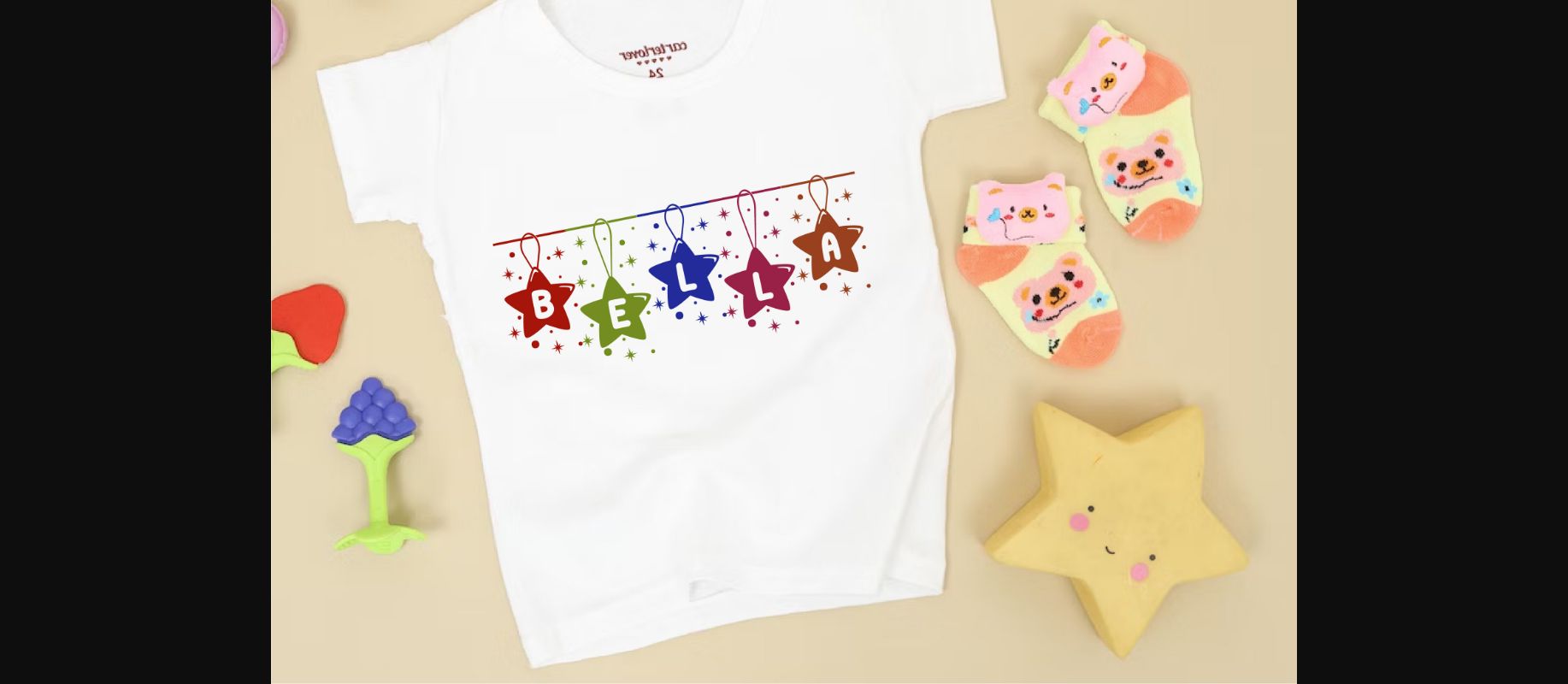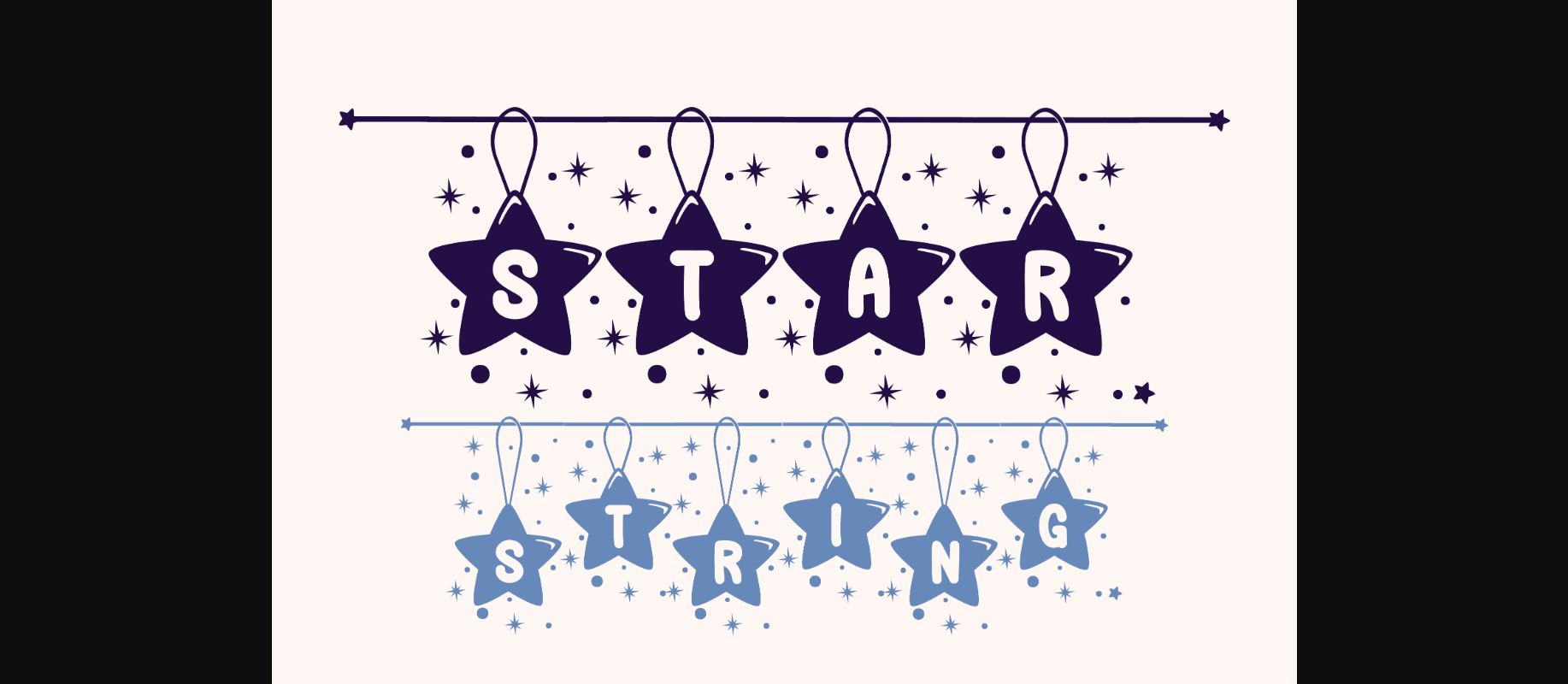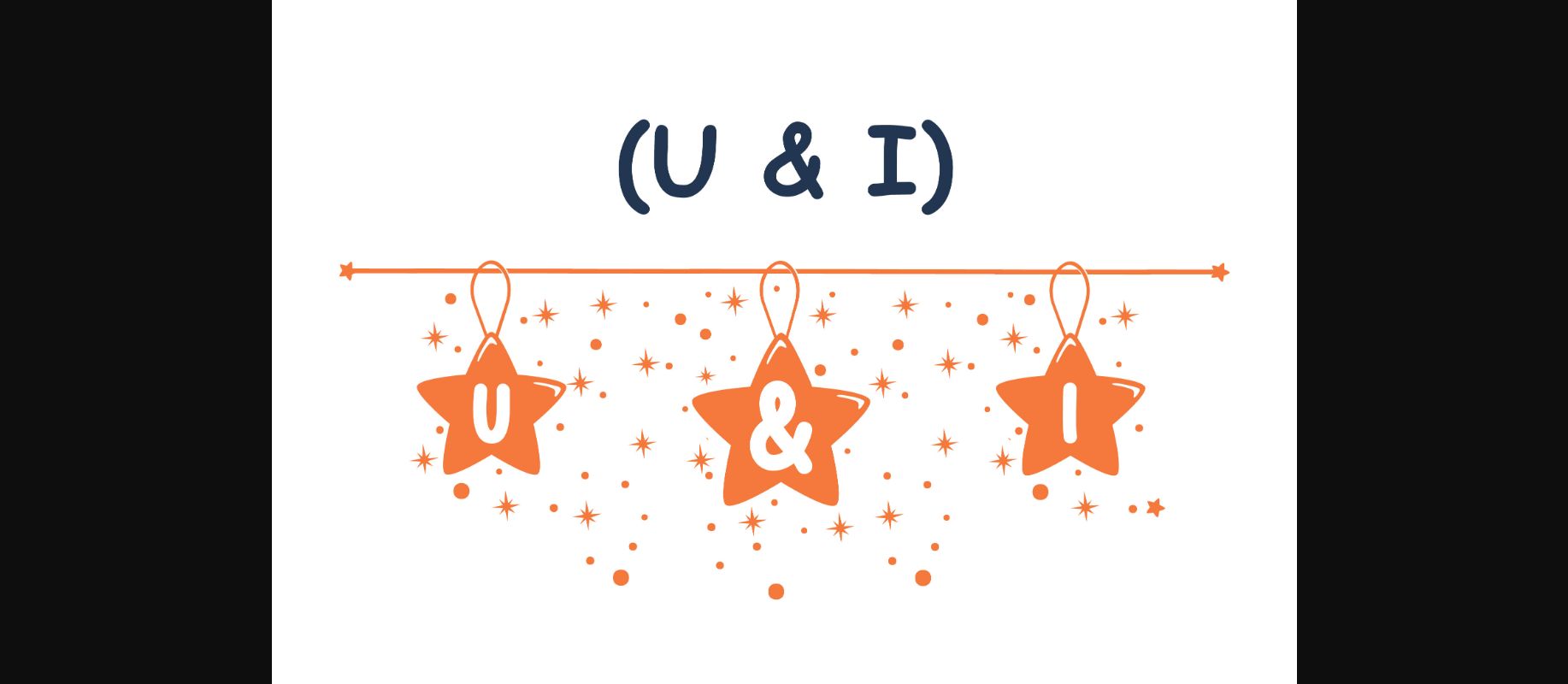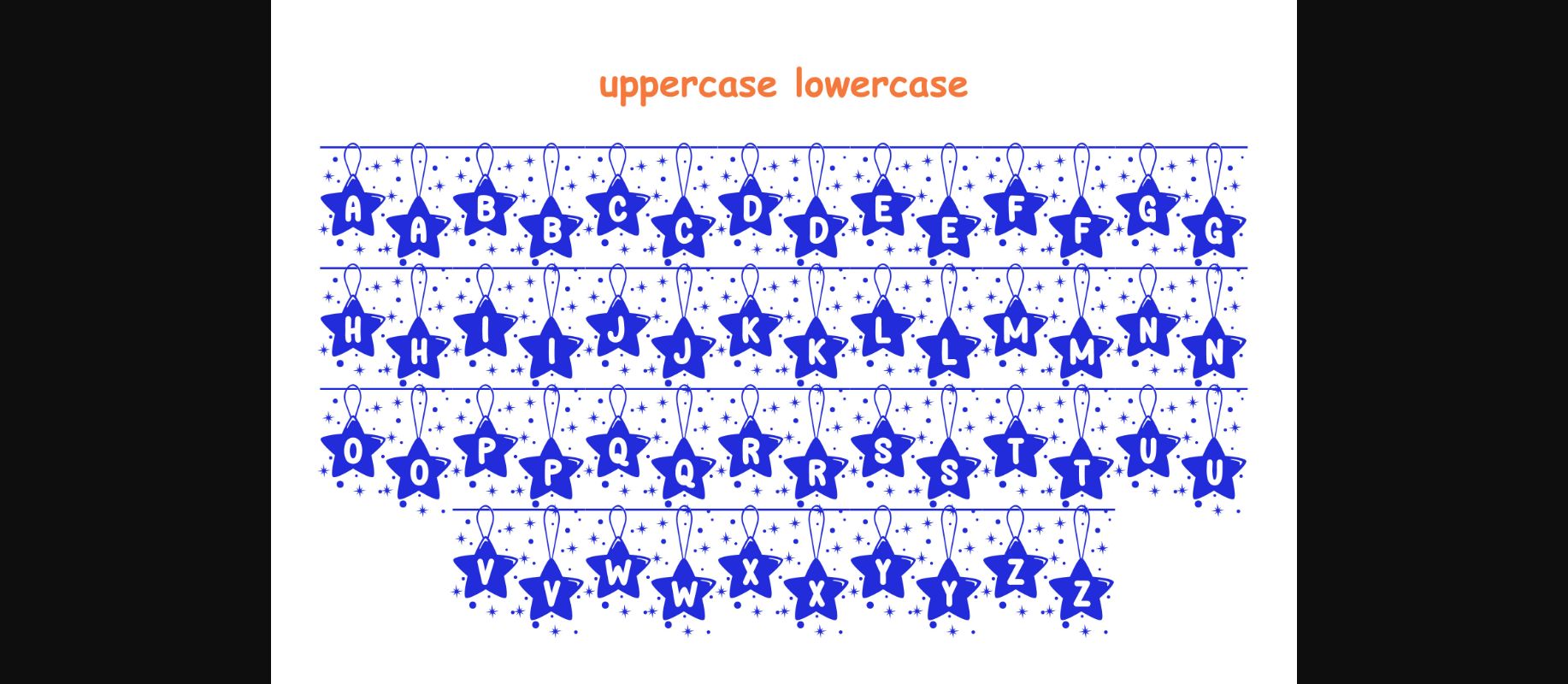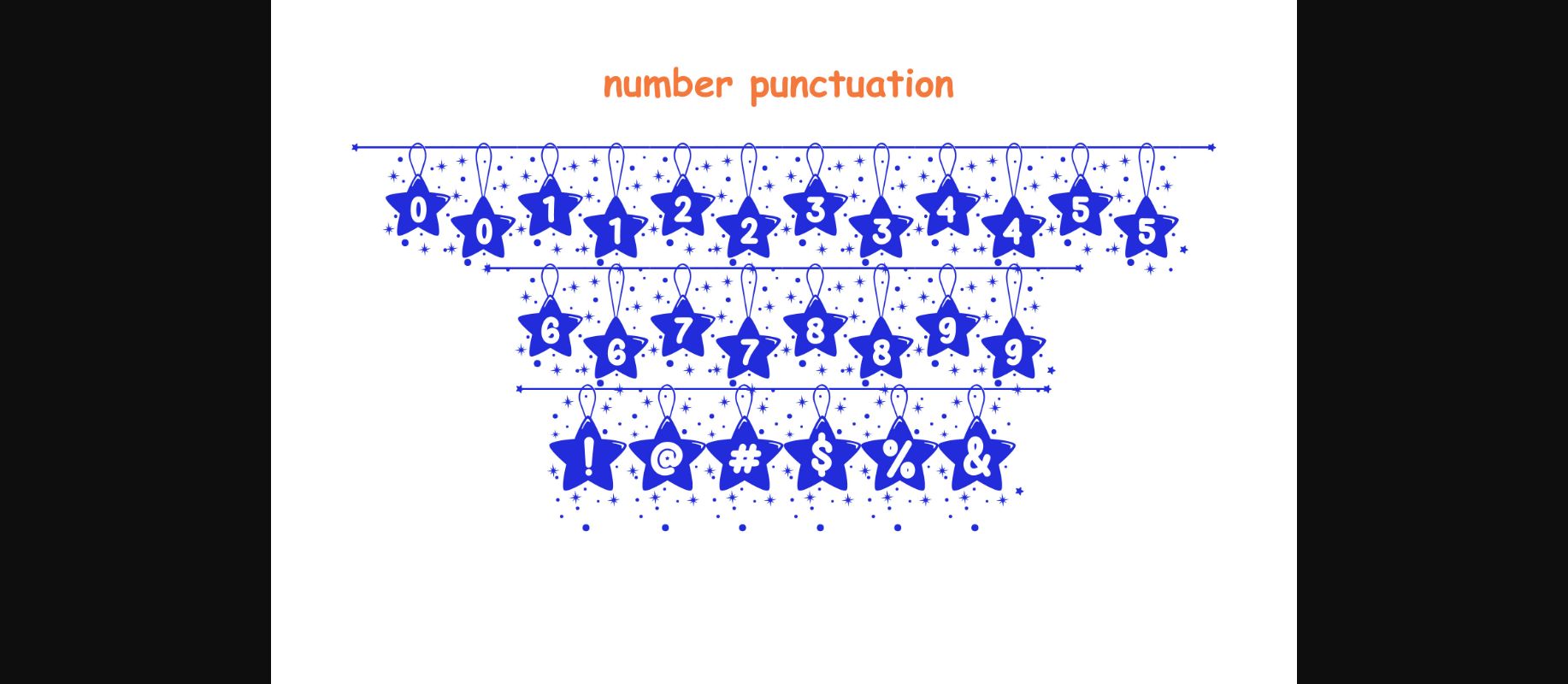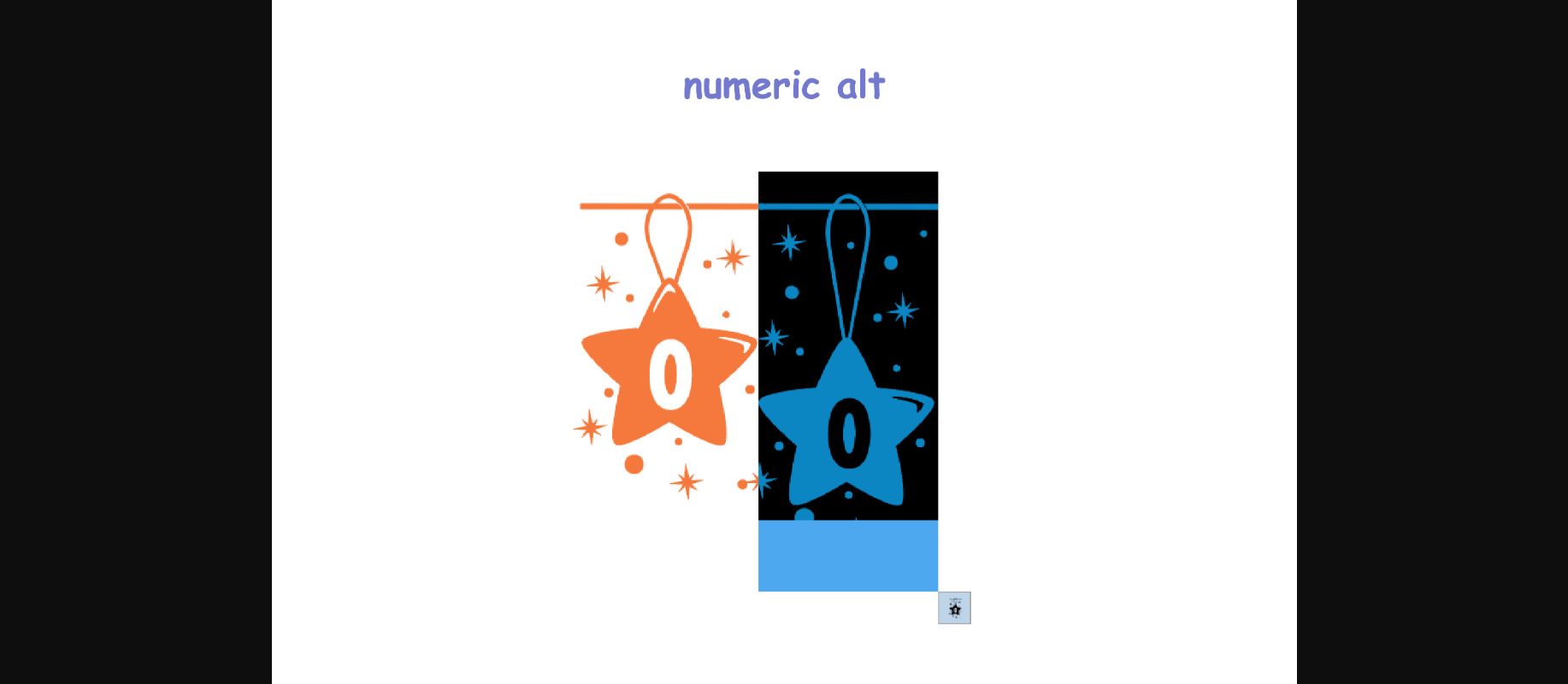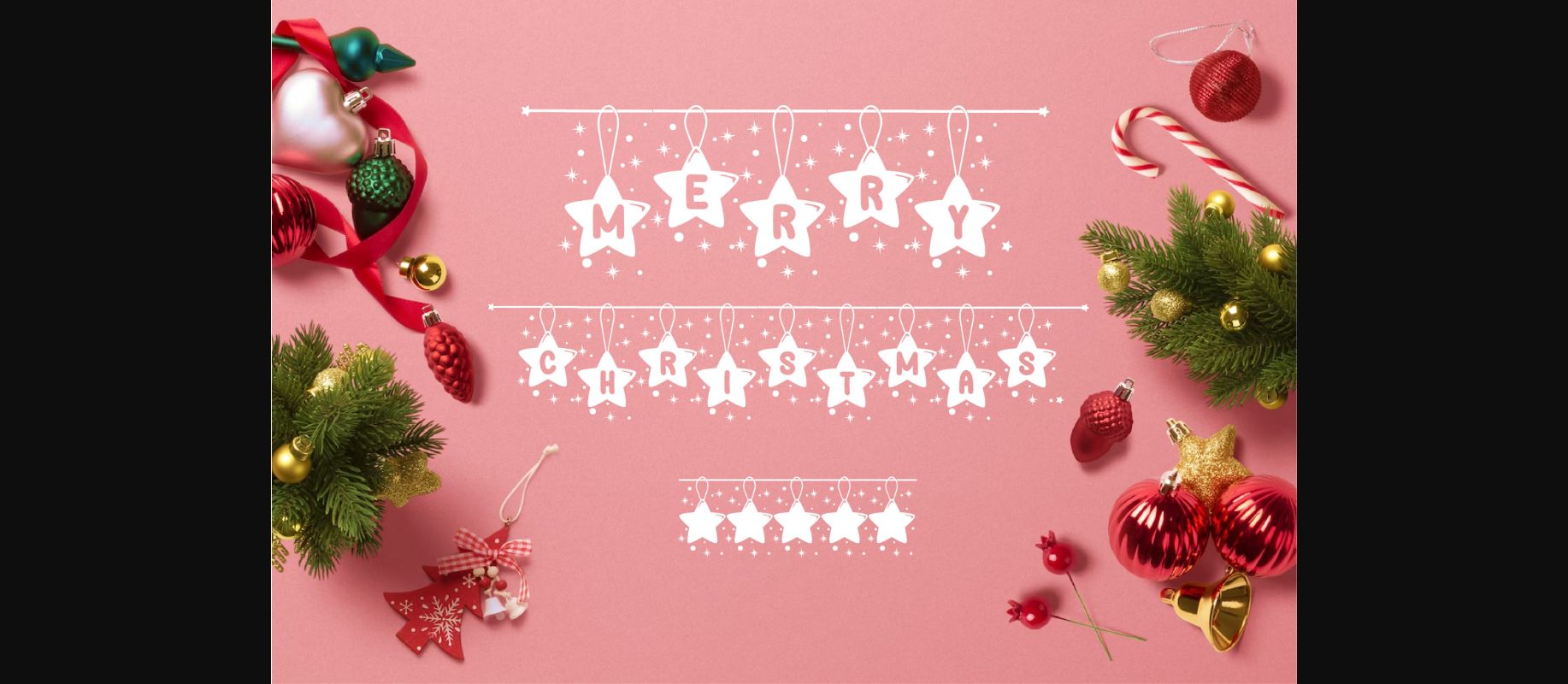
Star String Font
About Star String Font
Star String is a cute and lovely decorative font. No matter the topic, this font will be an incredible asset to your fonts’ library, as it has the potential to elevate any creation. Use it to create breathtaking social media posts, cute greeting cards, logotypes, stickers, t-shirts, or any of your creative design projects.